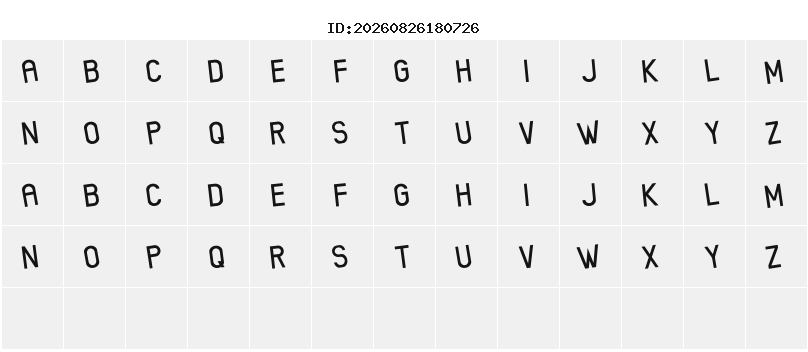
Xenik Preview
• Font Name: Xenik
• Font ID: Xenik:Version 1.00
• Full Font Name: Xenik
• Version: Version 1.00 February 5, 2014, initial release
• PostScript Name: Xenik
• Copyright: Xenik © (By Carlos Matteoli a.k.a Qbotype). 2014. All Rights Reserved
• Designer: Carlos Matteoli a.k.a. Qbotype
About Xenik.ttf
Xenik.ttf is a modern, elegant sans-serif font designed for ultimate readability and visual harmony. Perfect for branding, headlines, web design, and print materials.